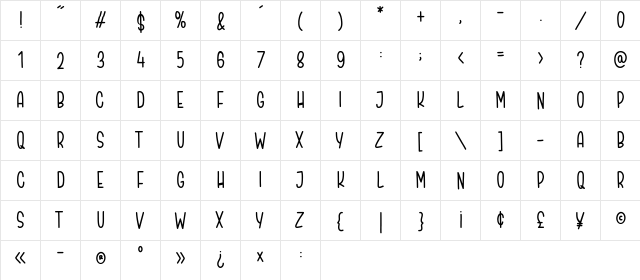
NIGHTJUMP Regular
| Designer | Balpirick Studio |
Design Context for NIGHTJUMP Typeface
NIGHTJUMP is a composed and adaptable typeface that performs quietly and consistently across a wide range of design contexts.